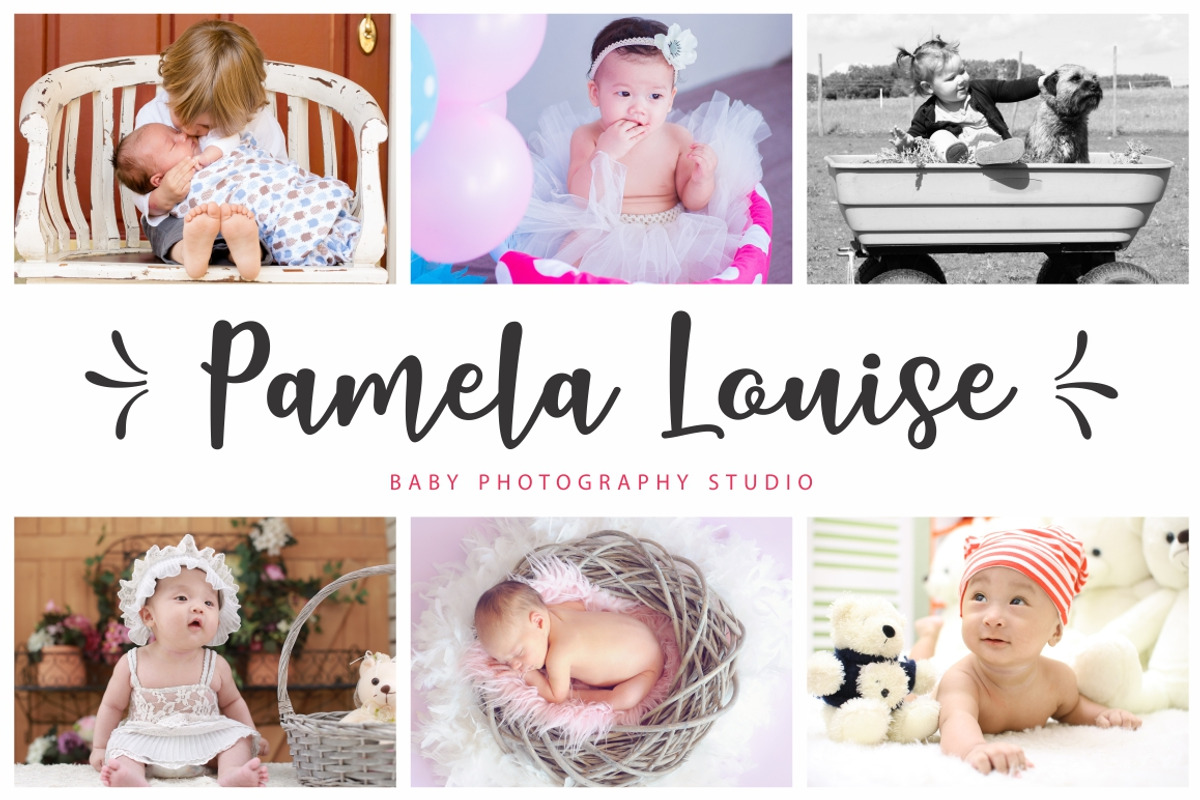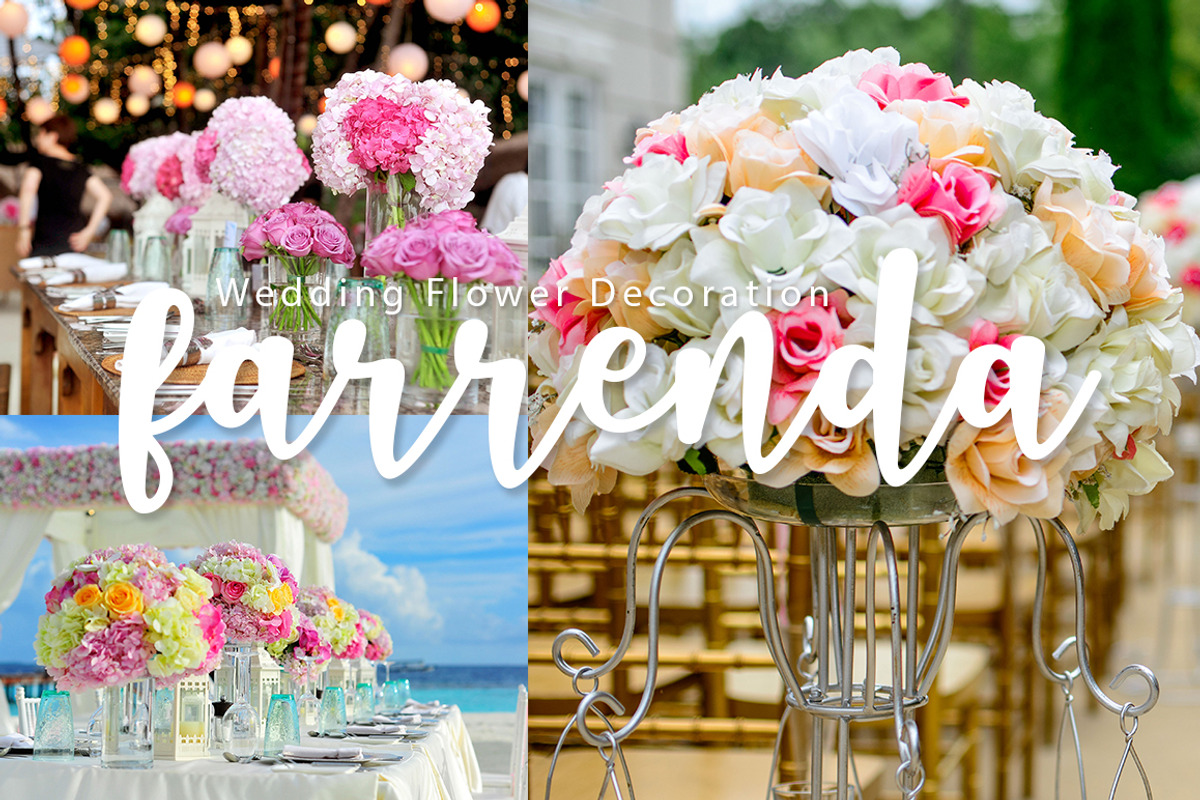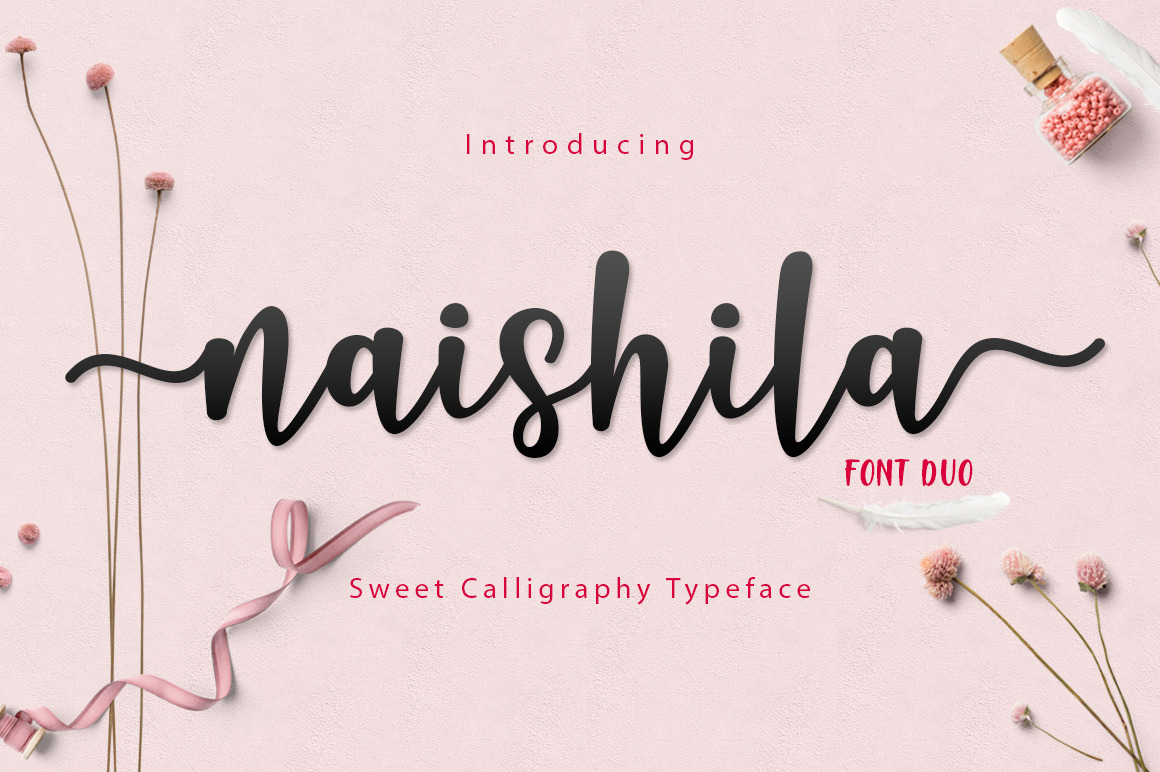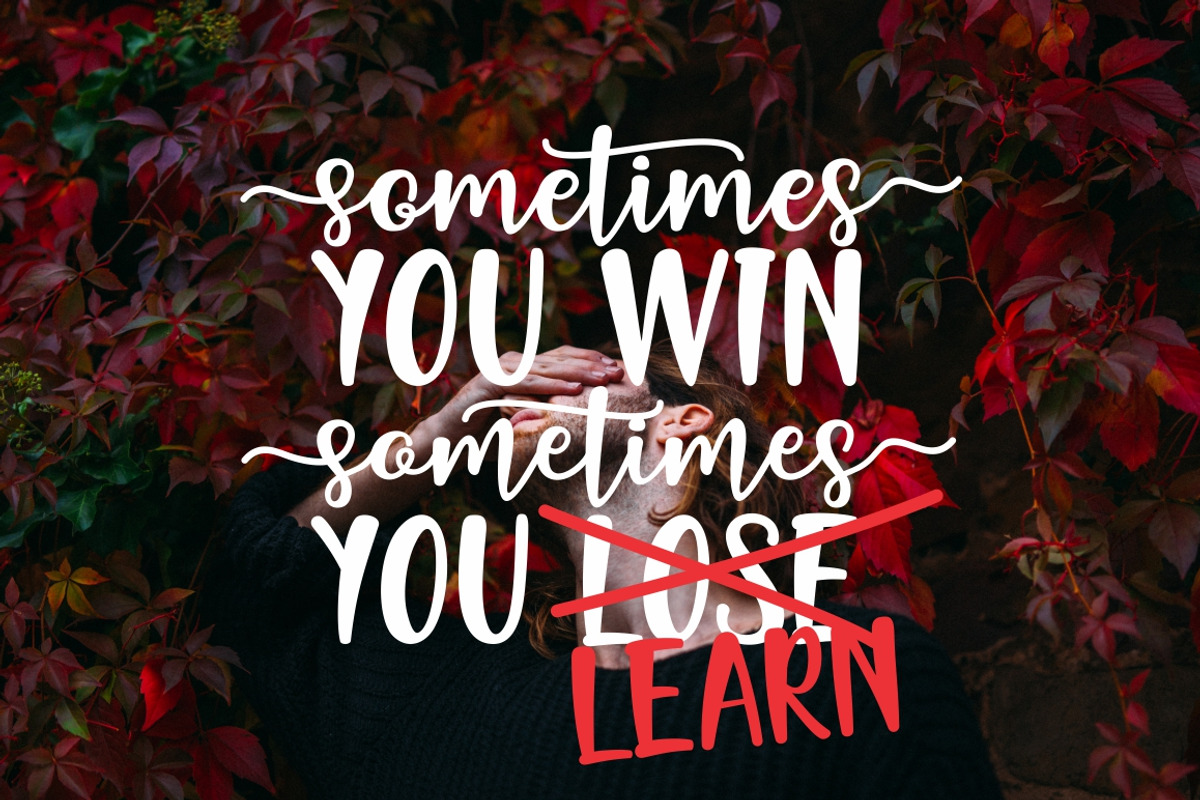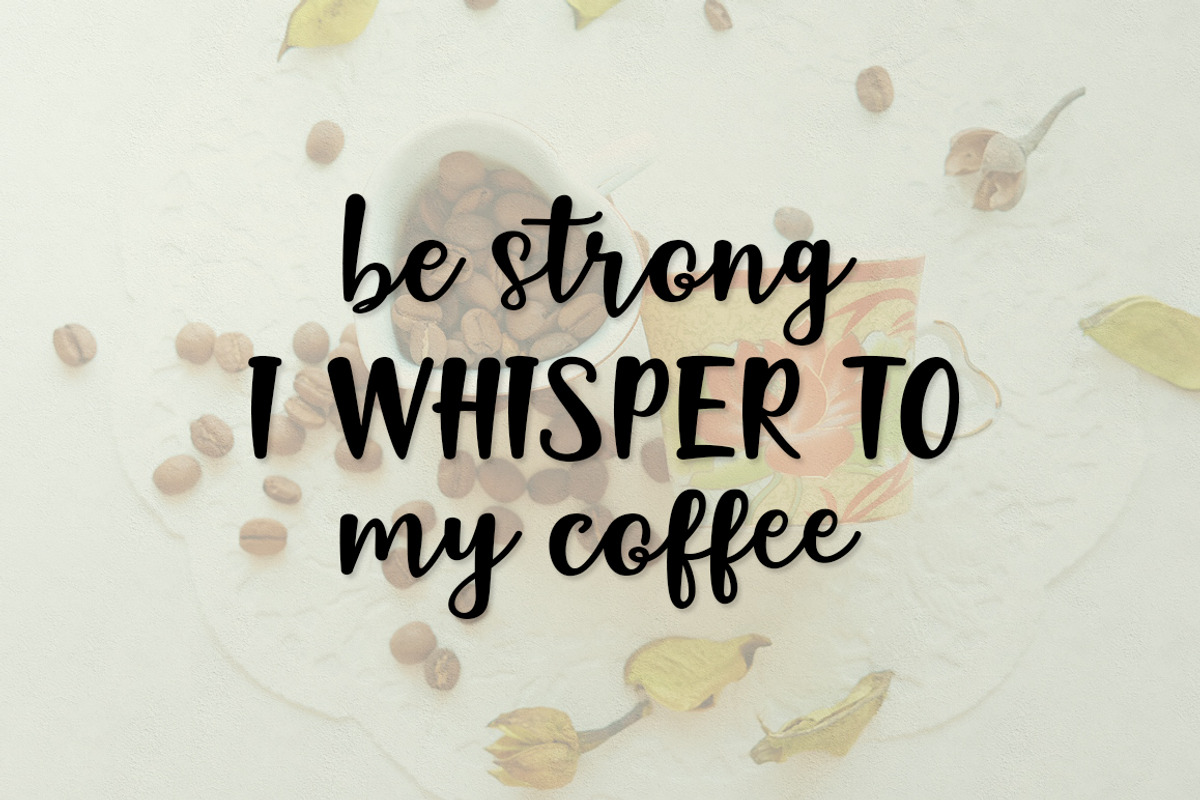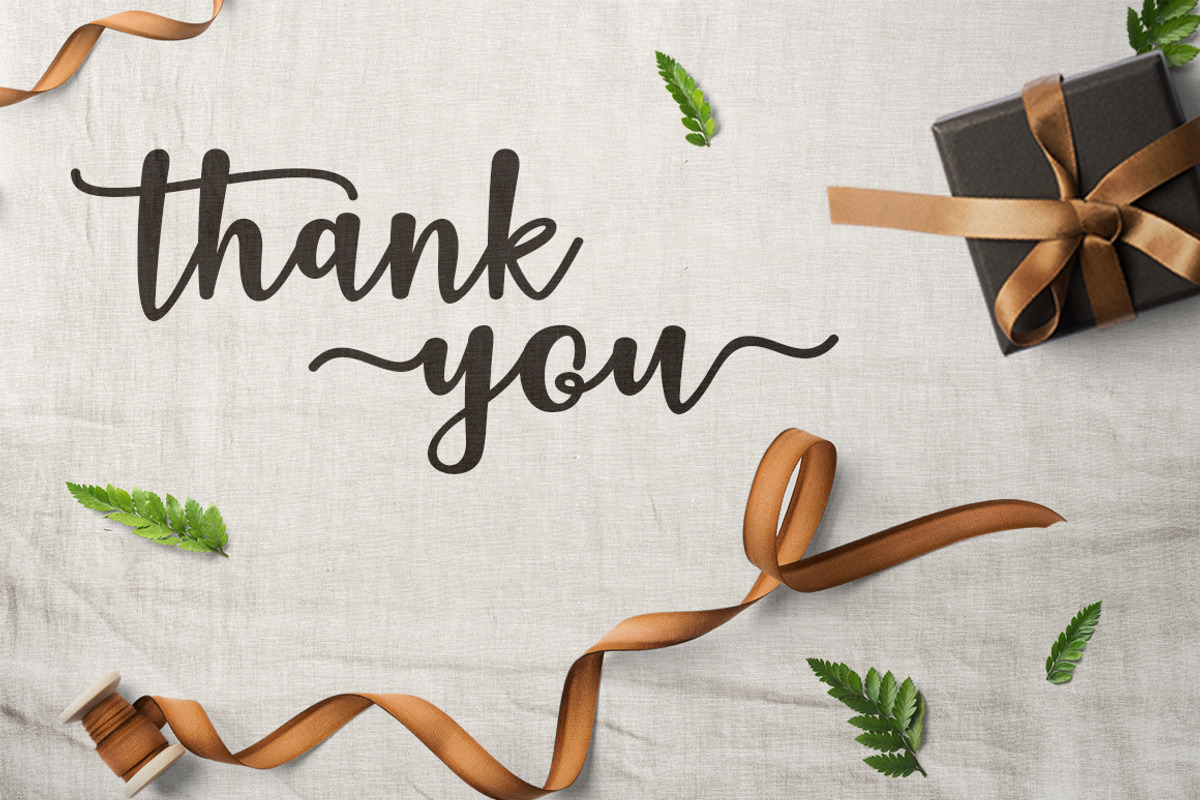
Naishila Font Duo
Introducing Naishila is a lovely and sweet font duo. This new font family includes a caps and script. Naishila is a lovely and sweet font with a dancing baseline. But here you will also receive regular font (not dancing). The script comes with stylistic sets and ligatures.
Still as before, Naishila also be used to meet the growing market of design today. This font has a model semi-bold, stylish, cute, lovely, sweet and soft. It is suitable for use in design styles such as watercolor, minimalist, flat, modern design, etc. Coming up with the font duo, you can very easily combine. Surely you can easily make something perfect for your design.
Naishila will look gorgeous on cards, mugs, quotes, posters, shopping bags, logo's, t-shirts, branding, book covers, birthday invitations, greeting cards, and all your other lovely projects.
You can use this font for your job very easily. Because there are many features in it. Contains the complete set of lower and uppercase letters, punctuation, numbers, web fonts, and multilingual support. This font also includes several ligatures and alternative style Stylistic Set For those of you who have software that is capable of working OpenType (Corel Draw / Photoshop / Illustrator / InDesign).